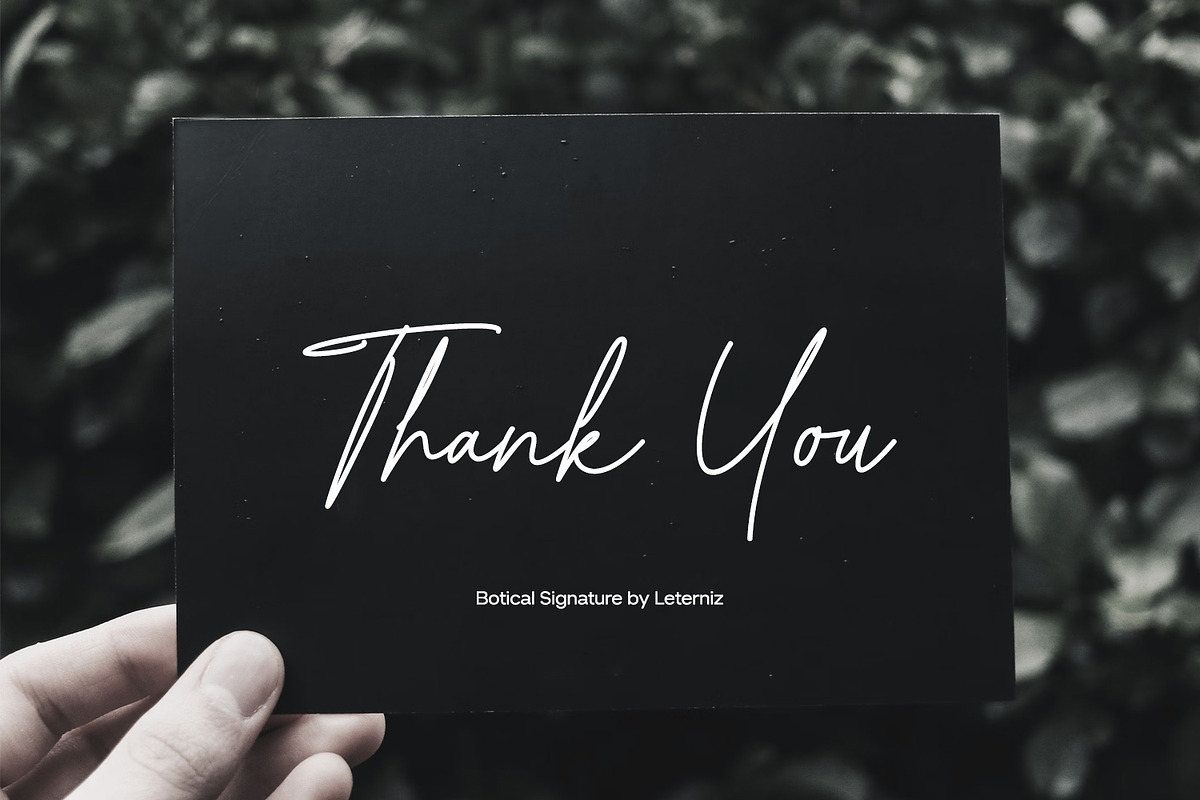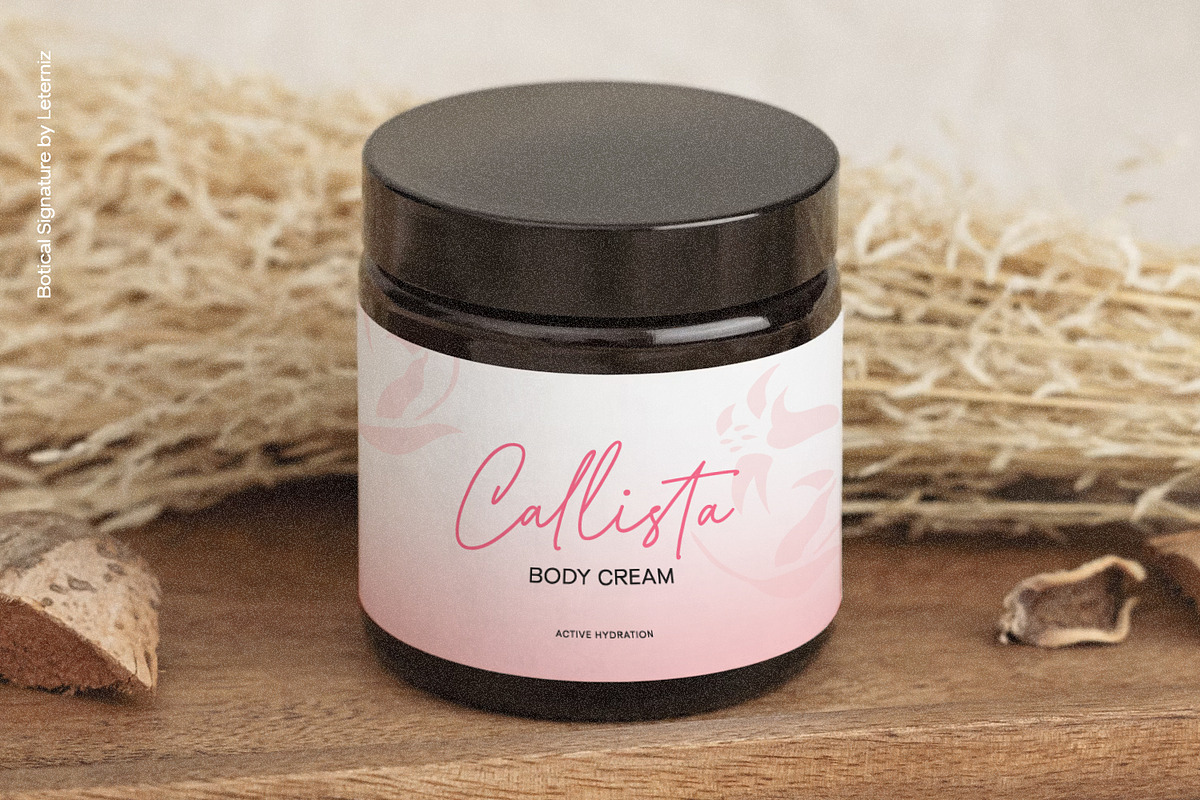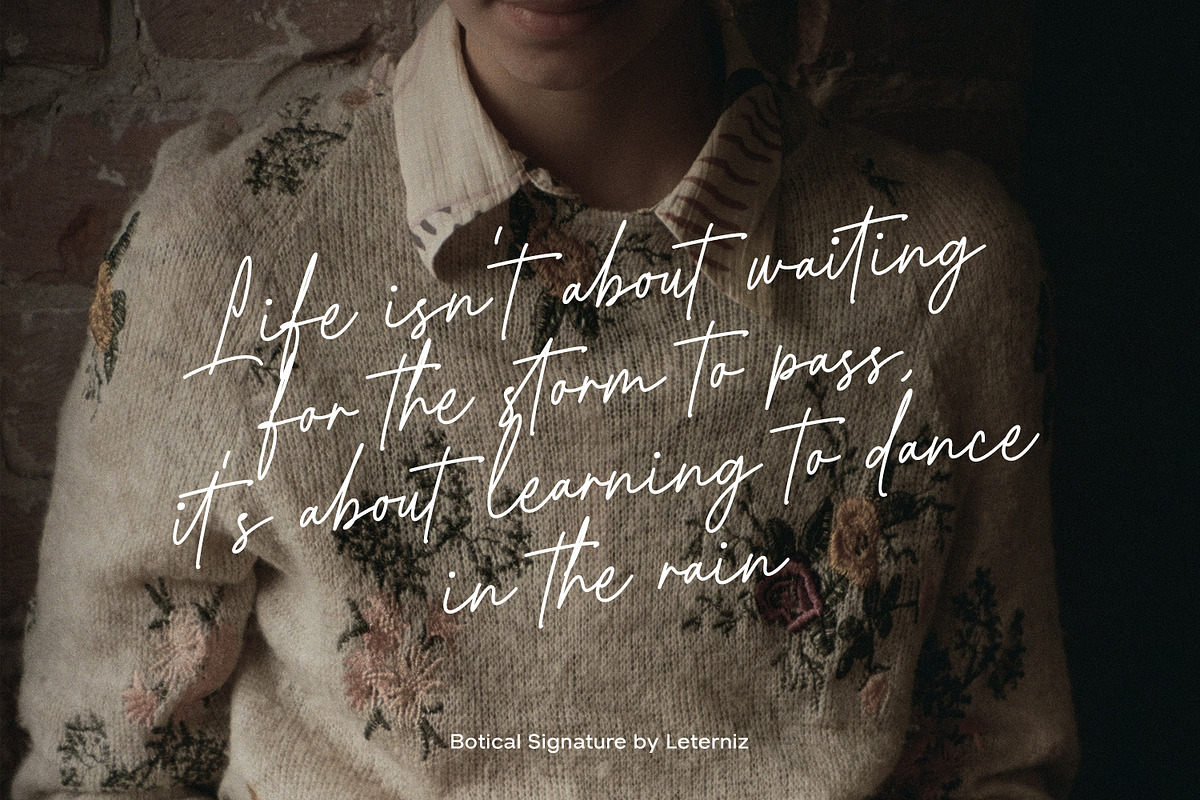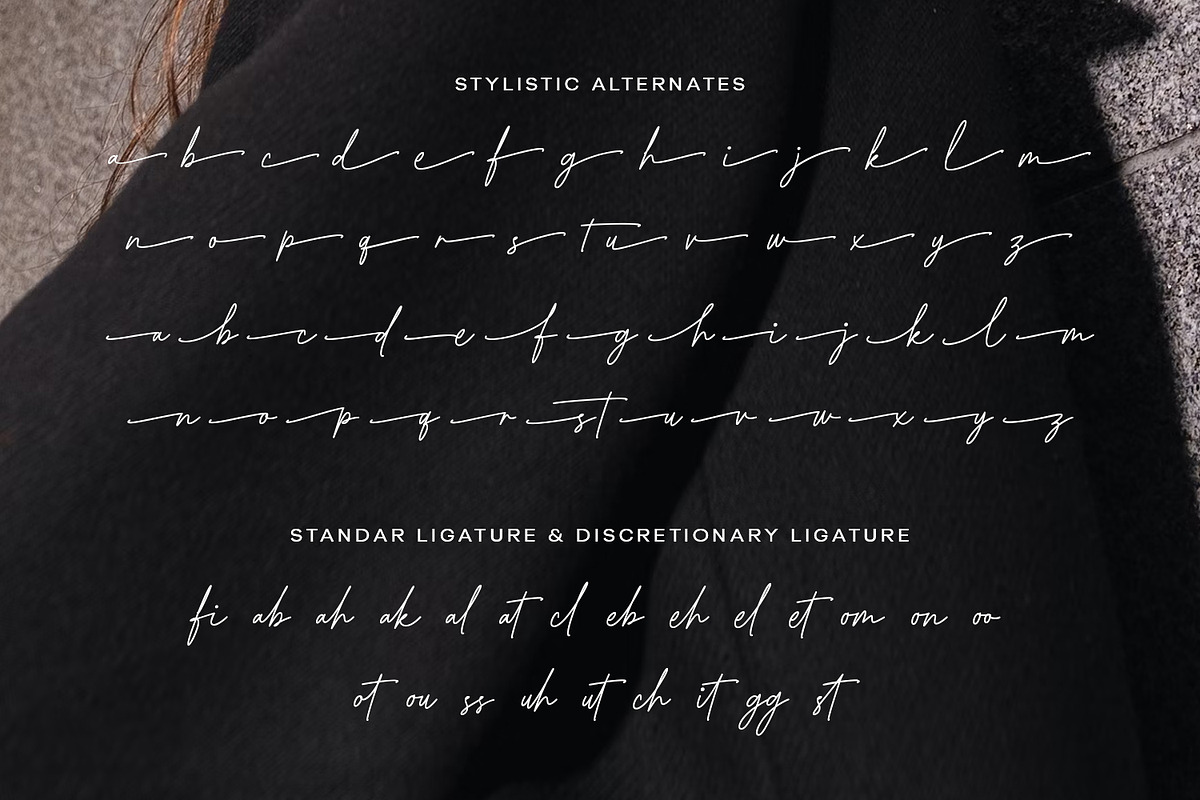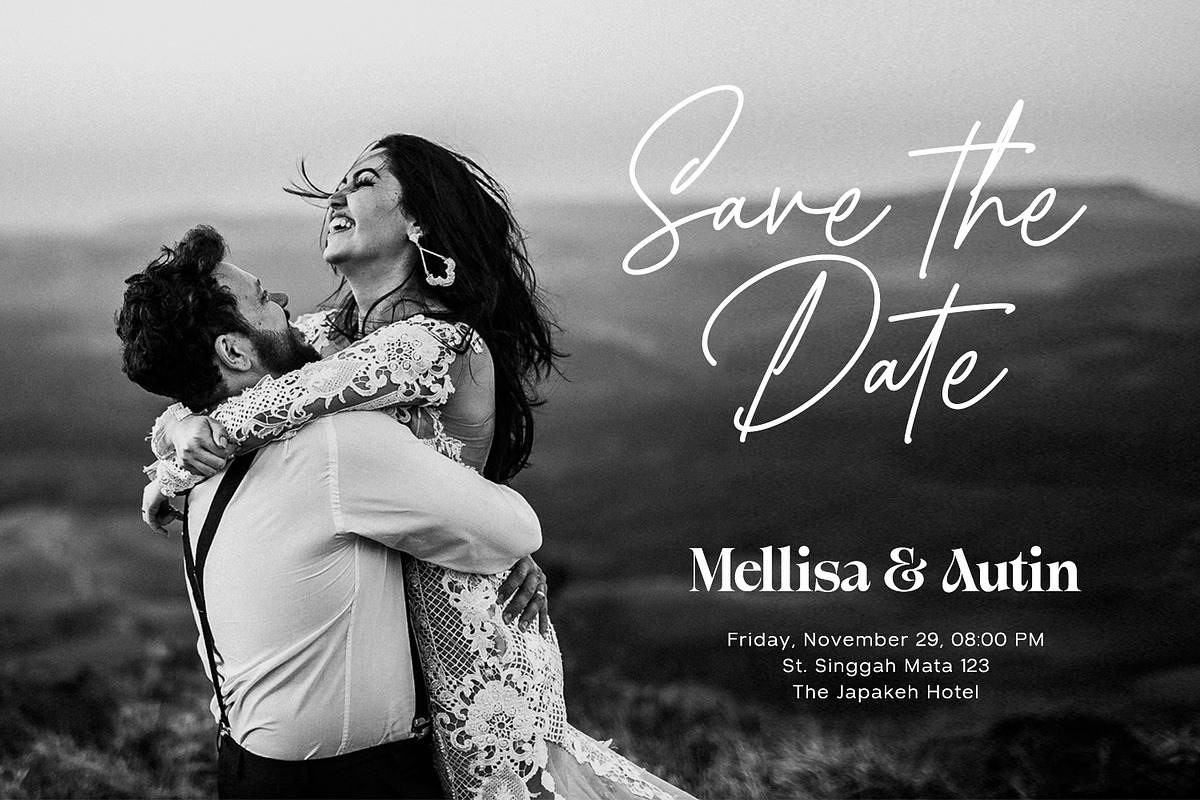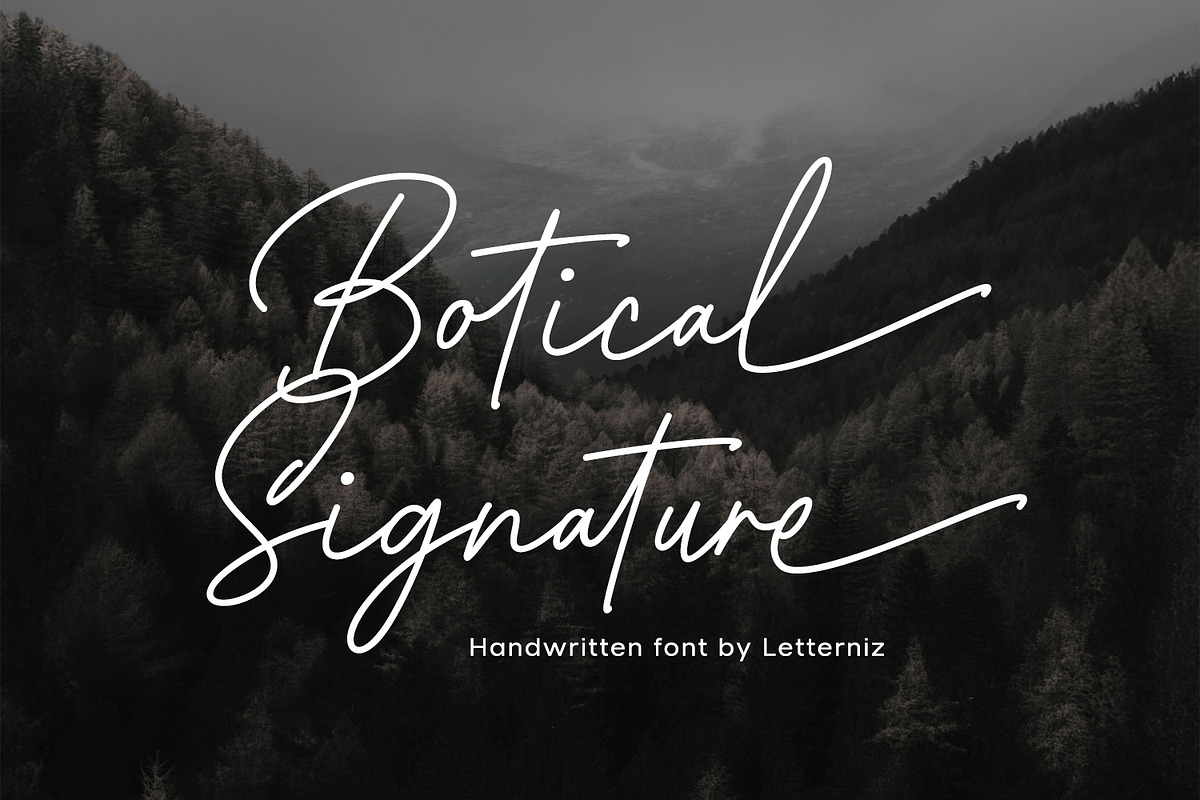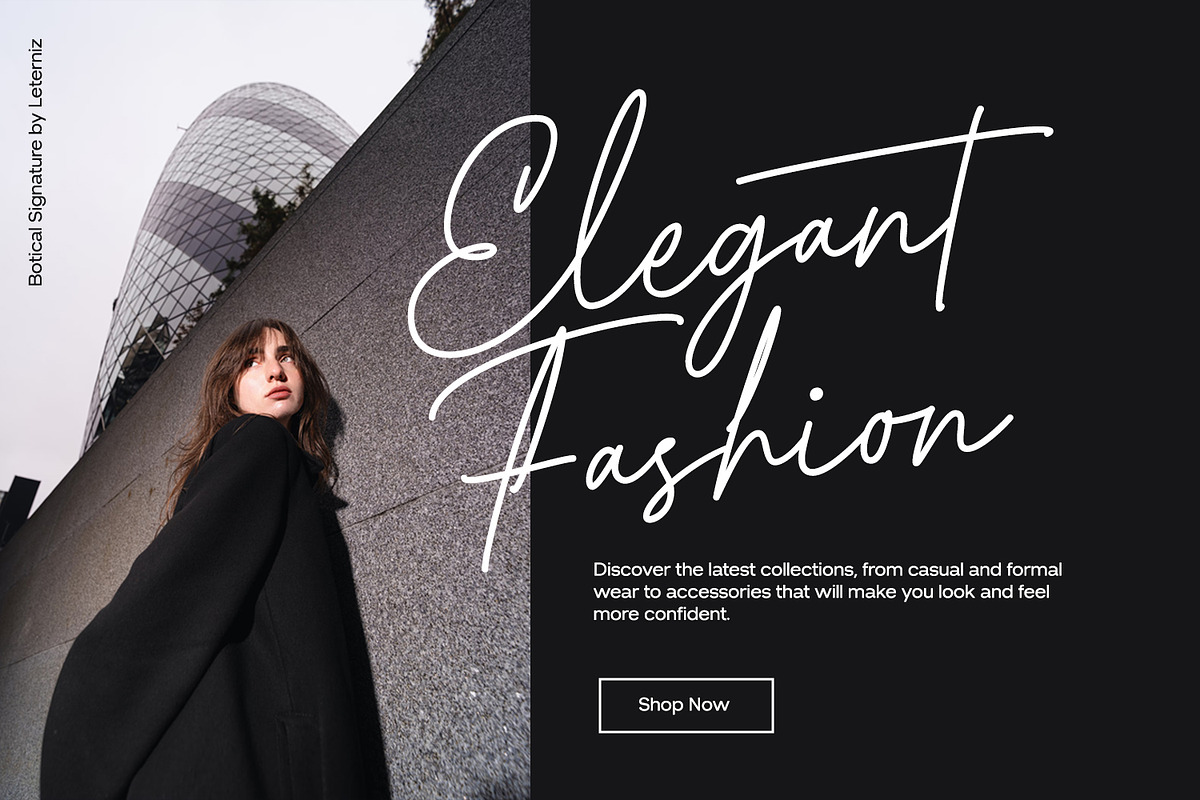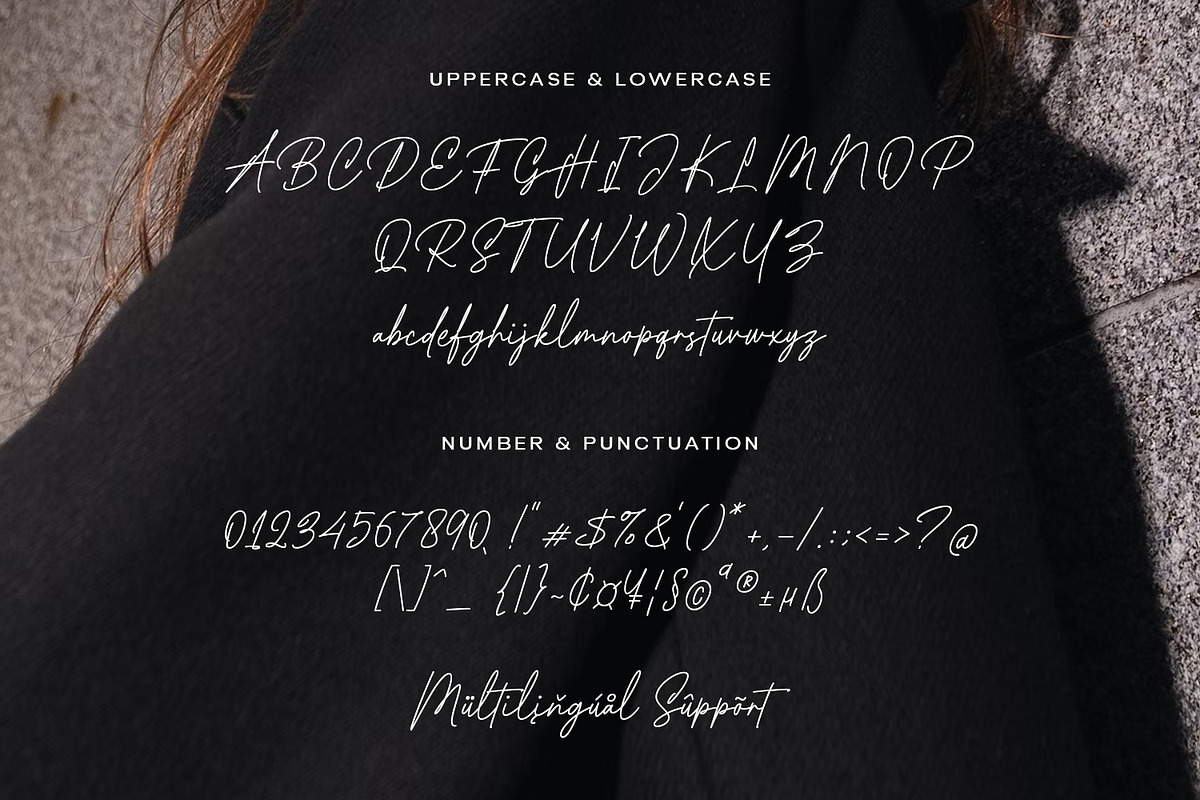
Botical Handwritten Signature Font
Botical Signature is a beautiful Monoline Signature Script Font, perfect for any project like: logos, branding projects, homewares designs, product packaging, mugs, quotes, posters, shopping bags, t-shirts, covers books, business cards, invitation cards, greeting cards, labels, photography, watermarks, special events and all your other luxury projects that require a premium taste.
- Standard & Multilingual glyphs
- Fonts include multilingual support for; Afrikaans, Danish, Dutch, French, German, Indonesian, Irish, Italian, Norwegian, Portuguese, Scottish, Spanish, Swedish, Swiss.